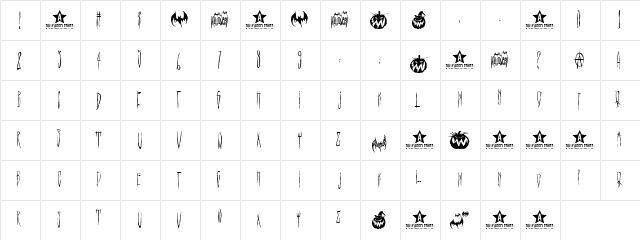
HELLO WEEN FONT Regular
Design Context for HELLO WEEN FONT Typeface
HELLO WEEN FONT is a composed and adaptable typeface that performs quietly and consistently across a wide range of design contexts.